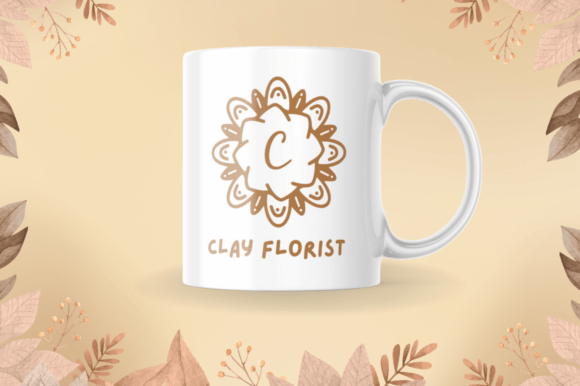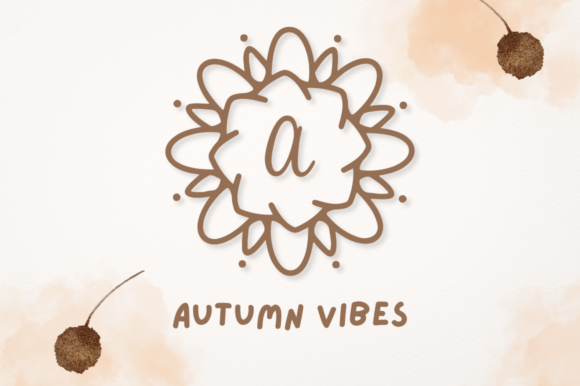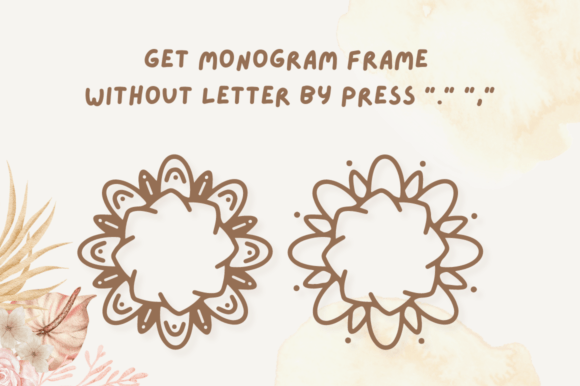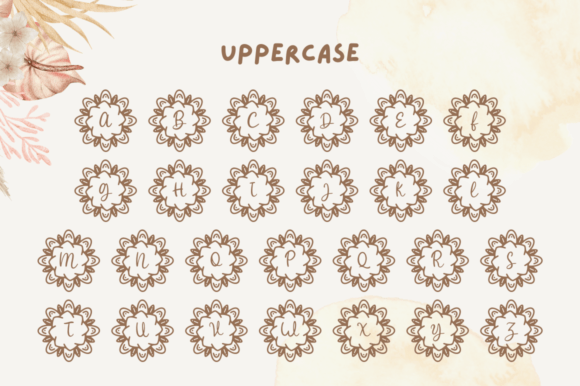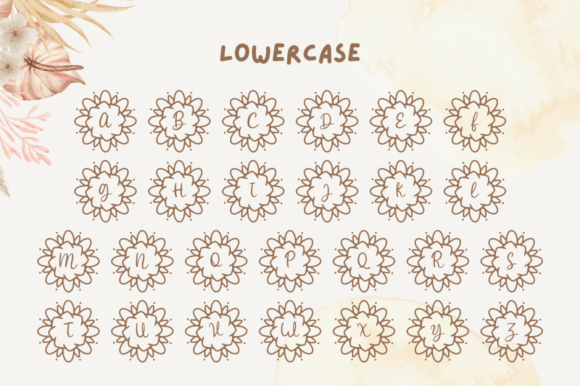
Introduction to Rositha Monogram Font
Rositha Monogram is a stunning digital font that combines elegance and beauty in every curve and line.
This font is perfect for design projects that require a sophisticated and graceful touch, such as wedding invitations, business cards, and other branding materials What sets Roshita Monogram apart is its flower-themed monogram design.
Key Features of Rositha Monogram Font
Why Choose Rositha Monogram Font?
Rositha Monogram Font offers exceptional quality and versatility, making it a valuable addition to your design toolkit. Whether you’re creating for personal projects or commercial use, Rositha Monogram Font delivers professional results.